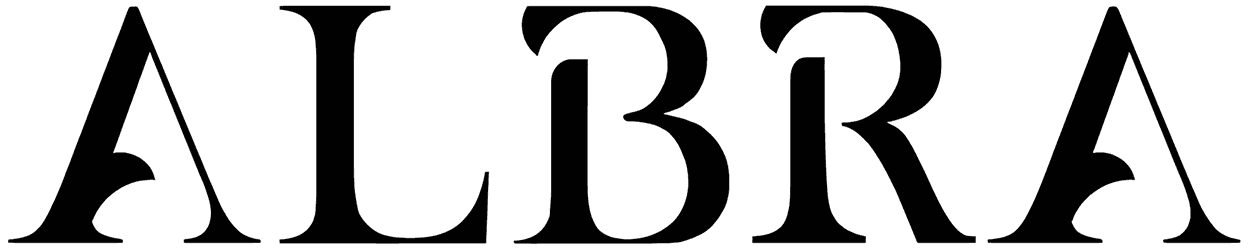
Albra Font
Albra font is one of the artistic geometric fonts designed with unique elegance, and in some characters, you will see dashed lines that can show the uniqueness of this font. This serif font does not have lowercase letters and numbers to fit your project, but it will be the best choice for designing the titles and headers of fashion magazines.